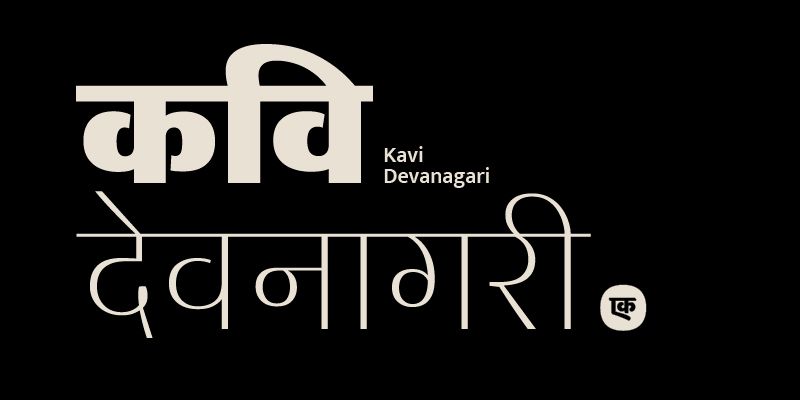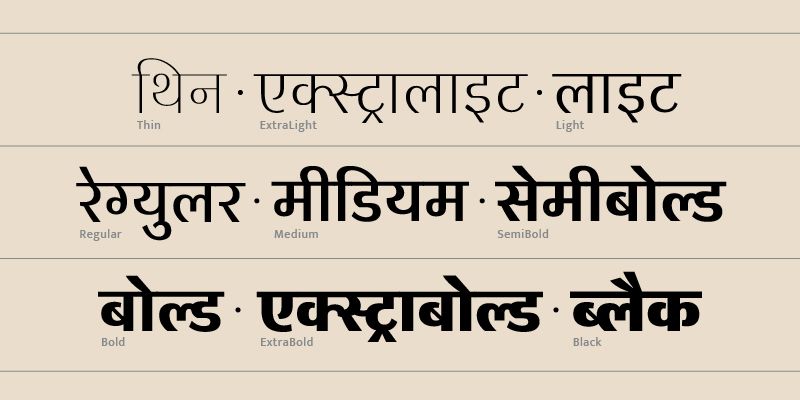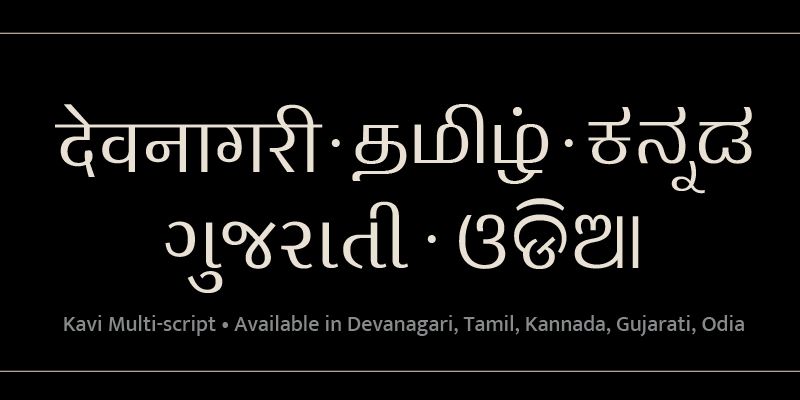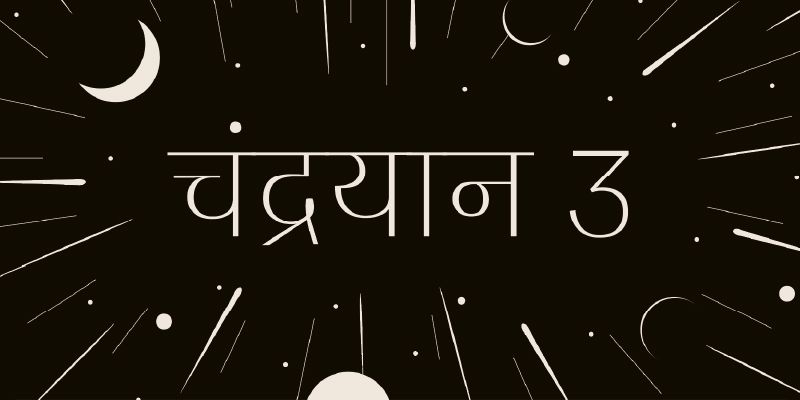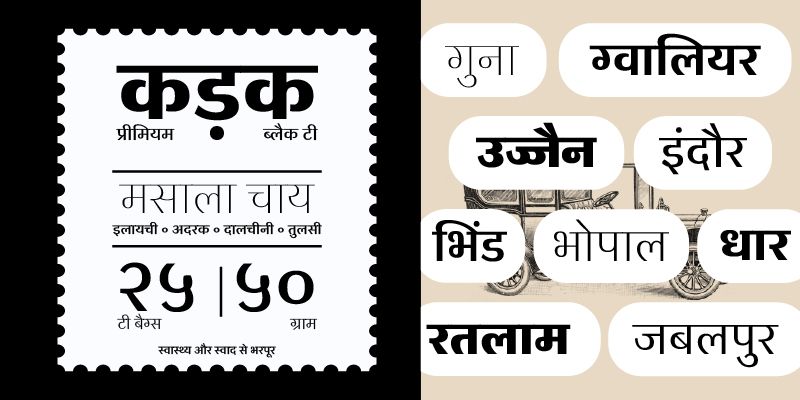
Designed for clarity and character, Kavi is a multi-script family that is sleek at its thinnest, confident at regular and steadfast at its heaviest. Its upright axis, medium contrast, straight cut terminals, and balanced deliberate curves make it impossible to ignore — perfect for brands that value poise and precision.
Kavi is currently available in 9 weights and supports Devanagari, Gujarati, Kannada, Odia and Tamil.